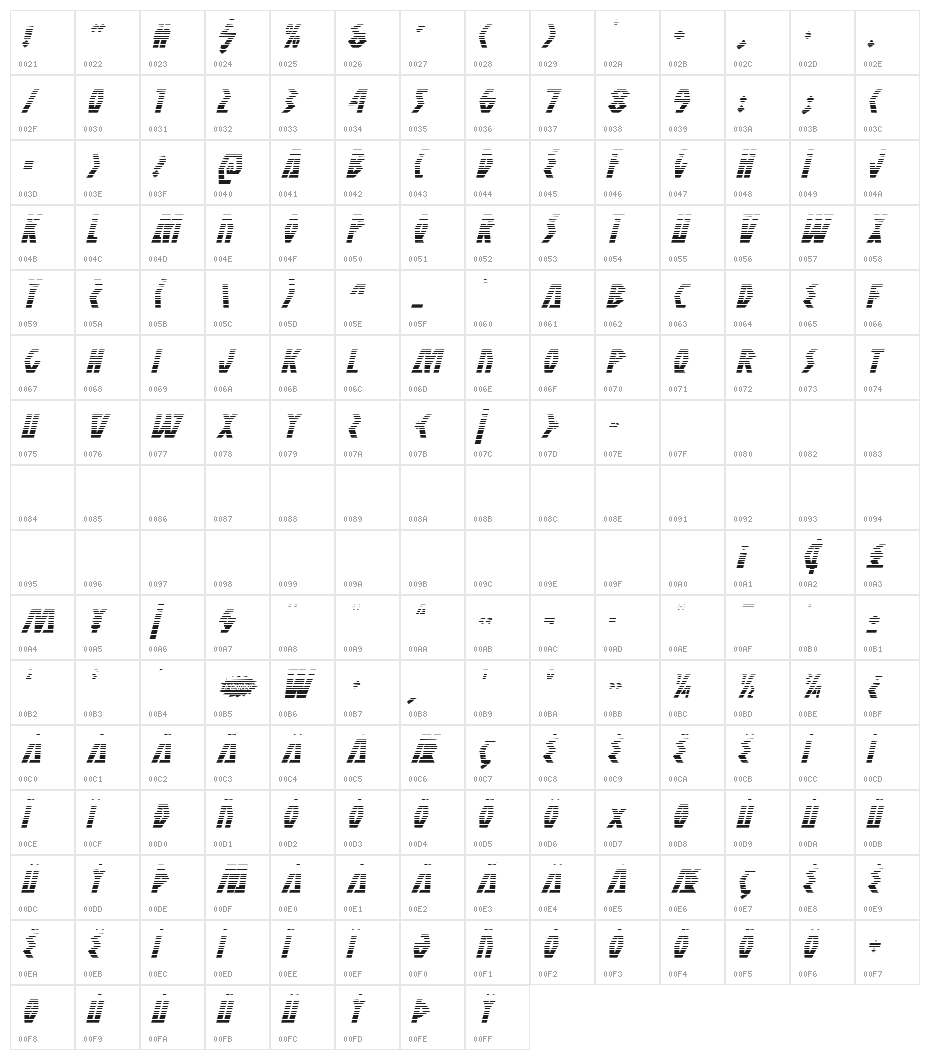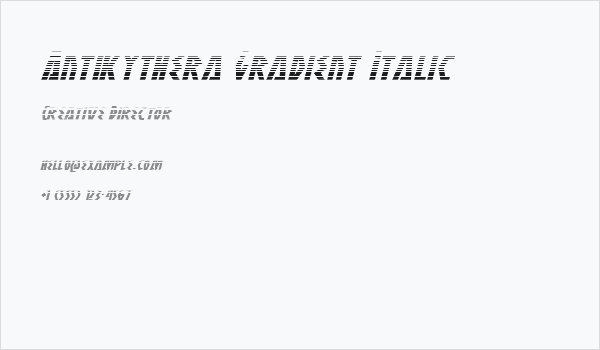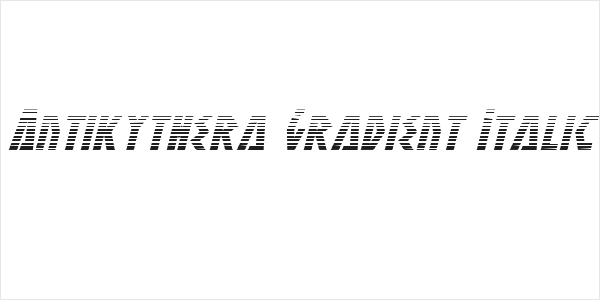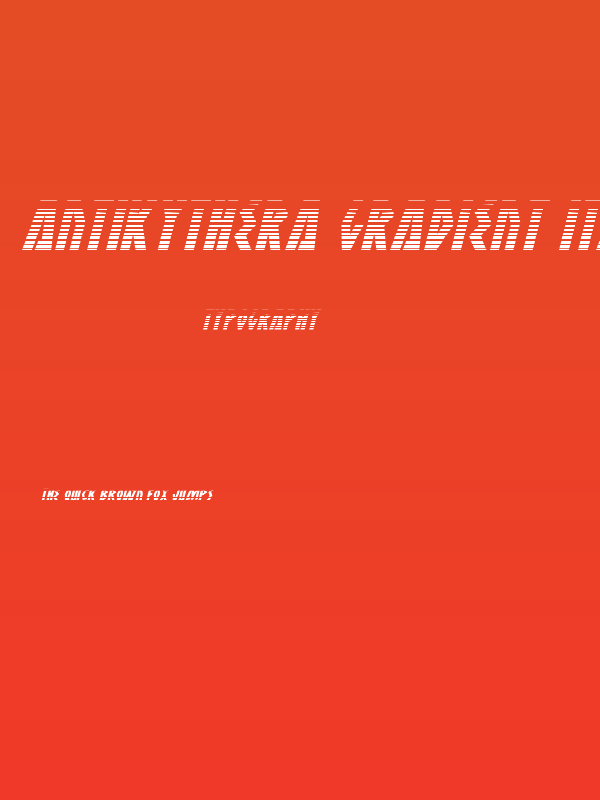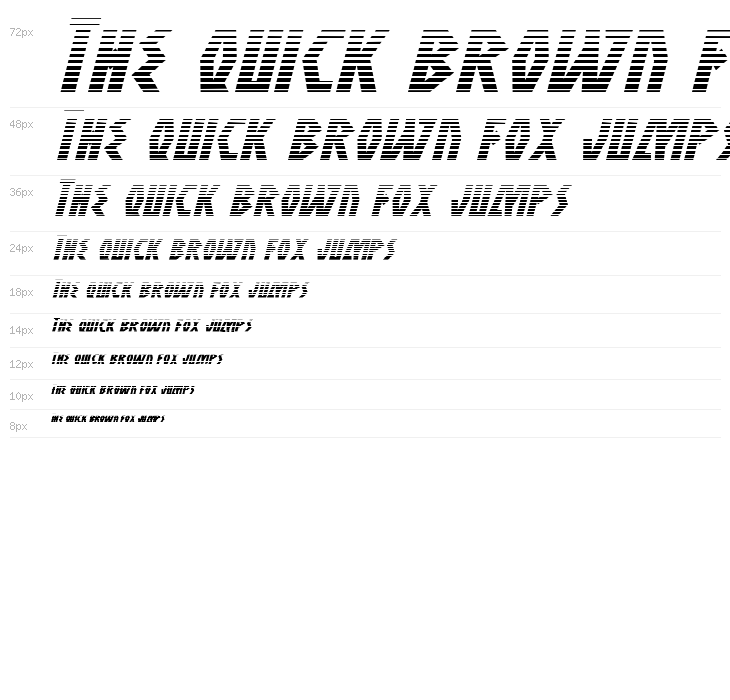
Antikythera Gradient Italic Font
Antikythera Gradient Italic Description
This font features a unique, futuristic design characterized by its gradient-like, striped pattern across each character. The letters are italicized, giving a sense of motion and dynamism. The uppercase and lowercase letters maintain a consistent style, with sharp angles and a distinct geometric influence. The numbers and special characters follow the same aesthetic, ensuring uniformity throughout. The font's bold appearance and high contrast make it stand out, ideal for eye-catching designs. Its modern and decorative style is perfect for projects that require a futuristic or tech-inspired look.
Proposed ProjectsIdeal for sci-fi themed posters, tech company logos, video game titles, and futuristic branding.